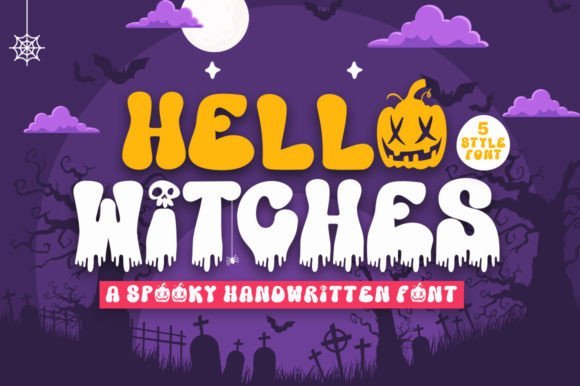
Get Ready to Cast a Spell with Your Designs
As the leaves start to change colors and the air grows crisp, our minds turn to the spookiest time of the year – Halloween. You’re browsing through your favorite design resources, searching for the perfect font to add some magic to your seasonal projects. That’s when you stumble upon the Hello Witches Font, and you know you’ve found your match made in heaven.
This adorable and eerie display font is specifically designed for your Halloween projects, but its timeless style makes it perfect for any occasion. With its unique blend of cute and scary elements, the Hello Witches Font is sure to make your designs stand out from the crowd. As a designer, you know how valuable it is to have a versatile font that can add a touch of personality to your work.
Hello Witches Font Key Features
- Font Family: Hello Witches is a unique, hand-drawn font designed to evoke a sense of magic and wonder. It features a distinctive, whimsical style with intricate details and flourishes.
- Character Set: The font includes a comprehensive set of characters, including uppercase and lowercase letters, numerals, punctuation marks, and special characters, making it suitable for a variety of applications.
- Size: The font includes a range of weights, from Light to Bold, allowing users to choose the perfect level of expressiveness for their project.
- Unique Characteristics: The font’s unique, hand-drawn style and intricate details make it perfect for adding a touch of magic and whimsy to designs, from fantasy novels to children’s book illustrations.
Hello Witches Font Review
Overall, I think the Hello Witches Font is a lovely, whimsical font that can add a touch of magic to your designs. Here are a few things that I think work well: ✨
- The font’s unique blend of modern and vintage elements creates a distinctive and eye-catching look.
- The wide range of weights and styles available makes it easy to find the perfect fit for your design needs.
- The font’s high-quality design ensures that it looks great at both small and large sizes.
- The font may not be suitable for designs that require a more serious or formal tone.
- The large number of styles and weights can be overwhelming to navigate, especially for designers who are new to the font.
Overall, I think the Hello Witches Font is a great choice for designers who want to add a touch of whimsy and magic to their designs. While it may not be the best fit for every project, it’s a versatile and well-designed font that is sure to delight.
Getting the Most Out of Hello Witches Font
To get the most out of Hello Witches Font, use it sparingly and strategically. This font is perfect for adding a touch of whimsy and magic to your designs. Use it for titles, headings, or other emphasis text to create a cohesive and visually appealing design.
Hello Witches Font is perfect for:
- Magical or mystical-themed designs.
- Spooky or Halloween-themed designs.
- Whimsical or fantasy-themed designs.
Alternatives to Hello Witches Font
Great Vibes is a modern, elegant script font suitable for various design projects, such as wedding invitations, event promotions, and lifestyle branding. It’s perfect for creating a whimsical and romantic atmosphere.
Comparison to Hello Witches Font: While Hello Witches Font has a more playful and magical feel, Great Vibes Font is more sophisticated and refined. Great Vibes Font is ideal for designs that require a touch of elegance and sophistication.
Crimson Text is a high-quality serif font suitable for various design projects, such as book covers, magazines, and corporate branding. It’s perfect for creating a sense of luxury and sophistication.
Comparison to Hello Witches Font: Hello Witches Font is more playful and whimsical, while Crimson Text Font is more formal and professional. Crimson Text Font is ideal for designs that require a sense of authority and credibility.